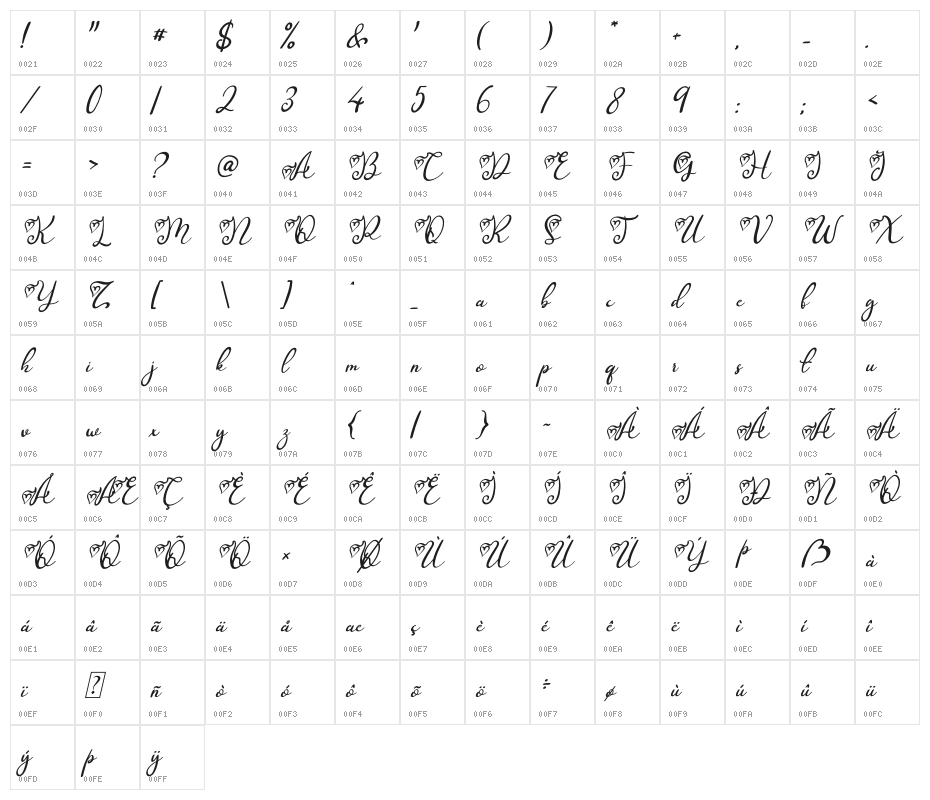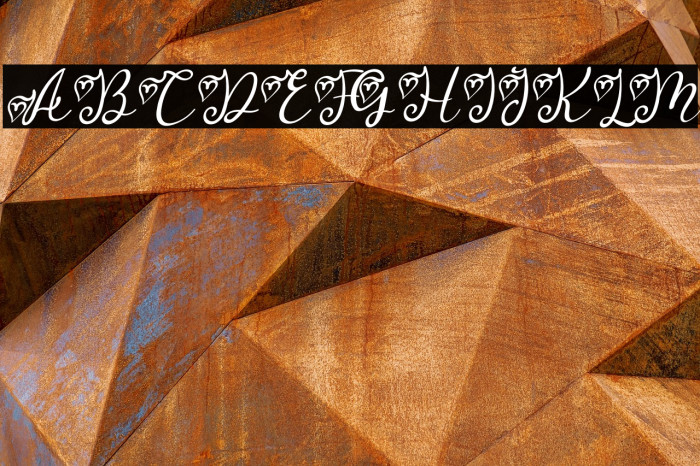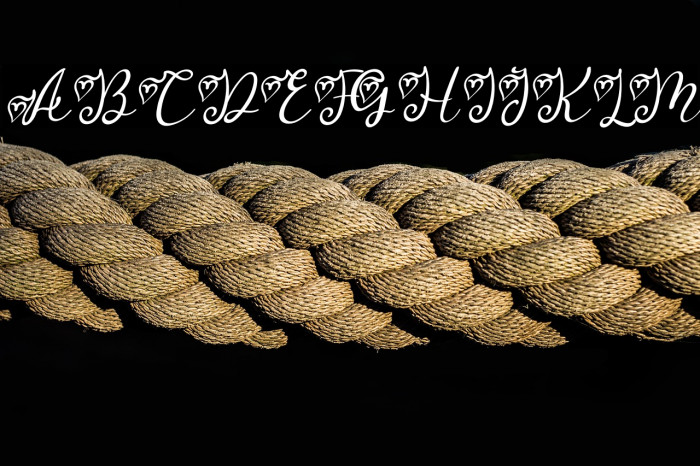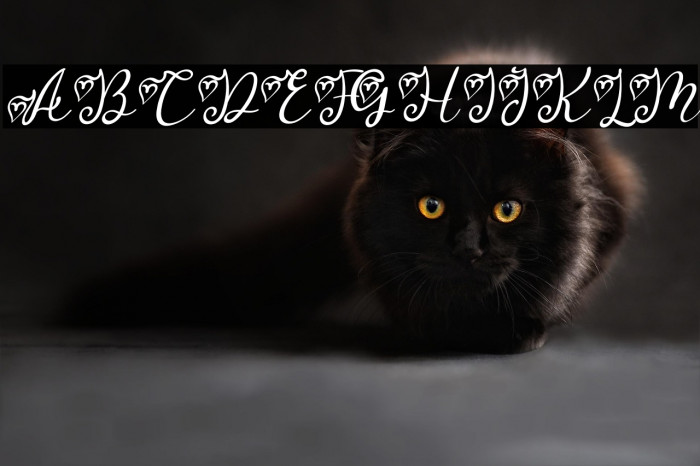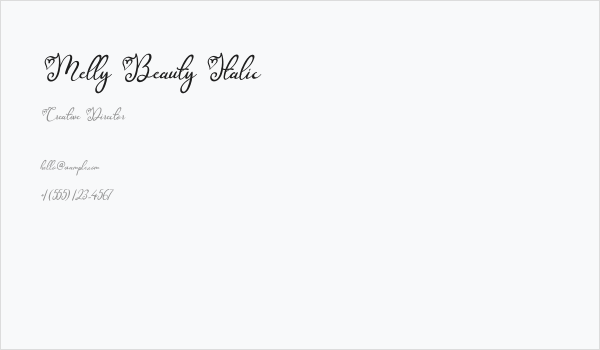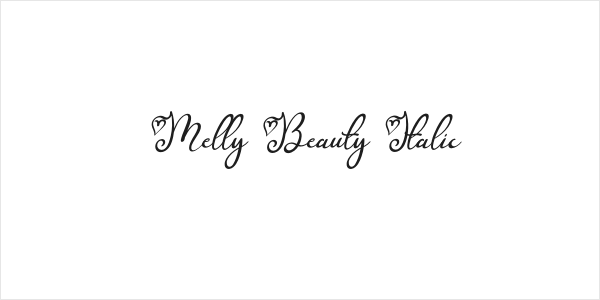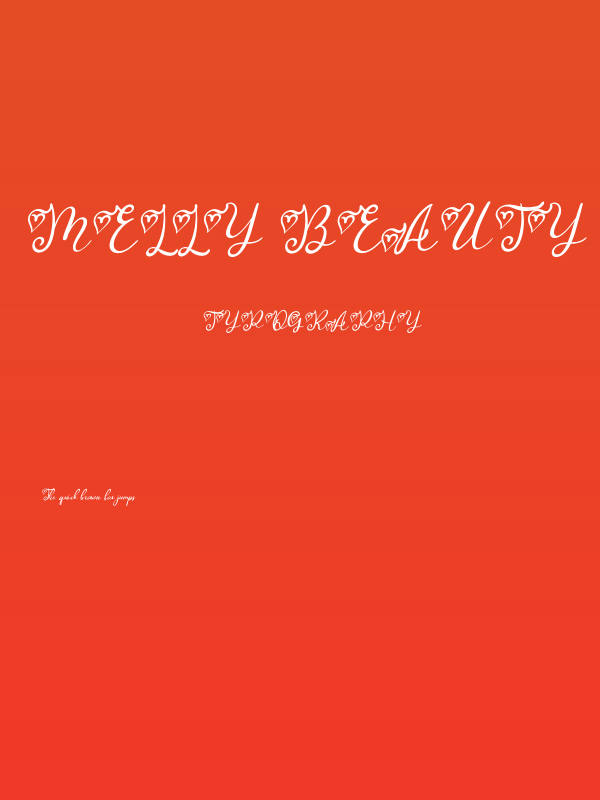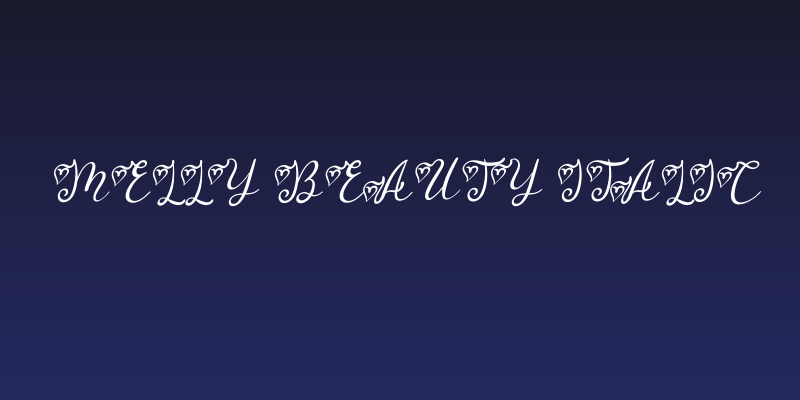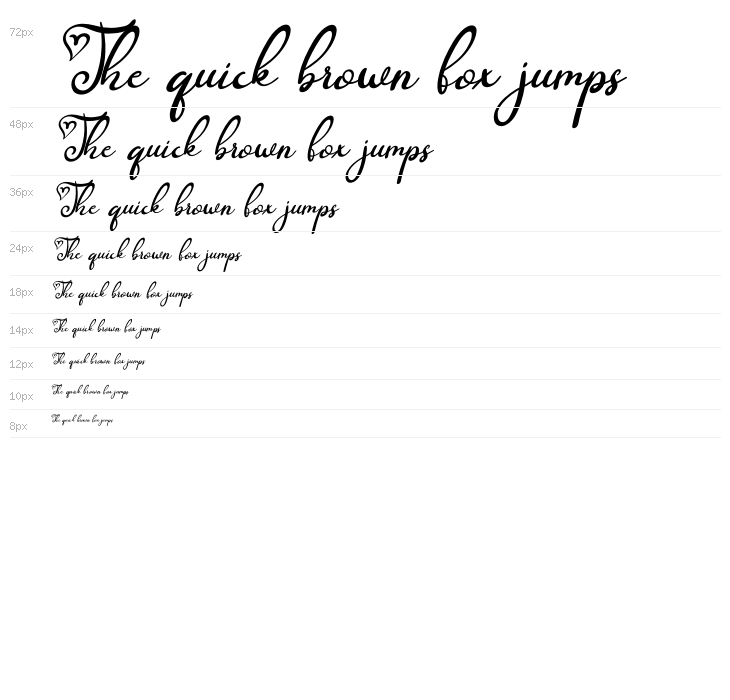
Melly Beauty Italic Font
Melly Beauty Italic Description
This elegant font features a flowing, cursive style with a romantic and whimsical touch. Each letter is adorned with heart-shaped embellishments, adding a playful and affectionate element to the design. The uppercase letters are particularly ornate, while the lowercase letters maintain a smooth and connected script. The numbers and special characters are consistent with the overall style, offering a cohesive look. The font's italic nature enhances its graceful and fluid appearance, making it ideal for projects that require a personal and heartfelt touch.
Use CaseHeadlines, Logos, Invitations
Proposed ProjectsIdeal for wedding invitations, greeting cards, love letters, and branding for romantic or feminine products.